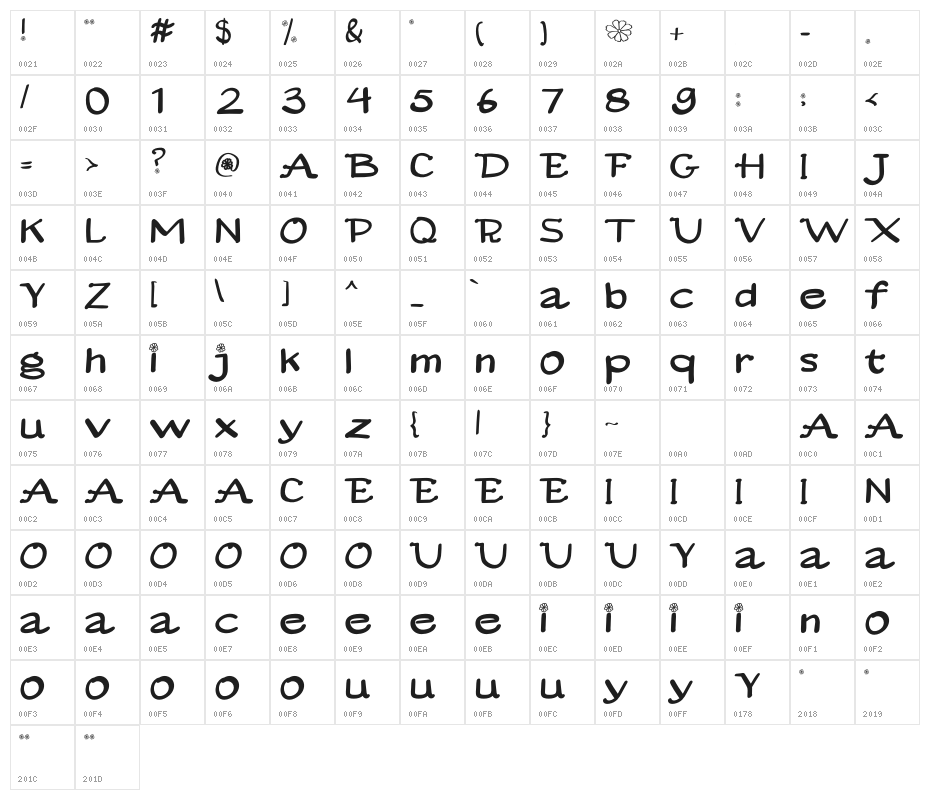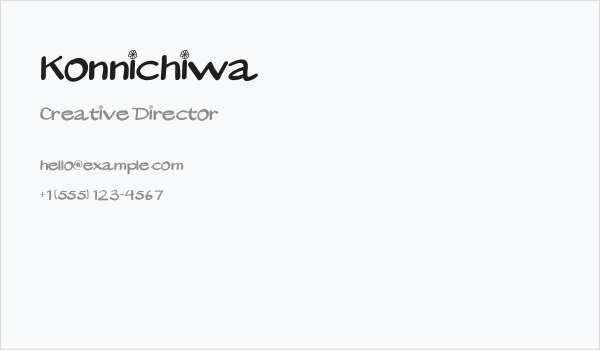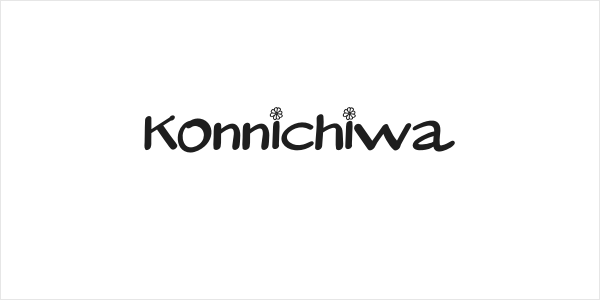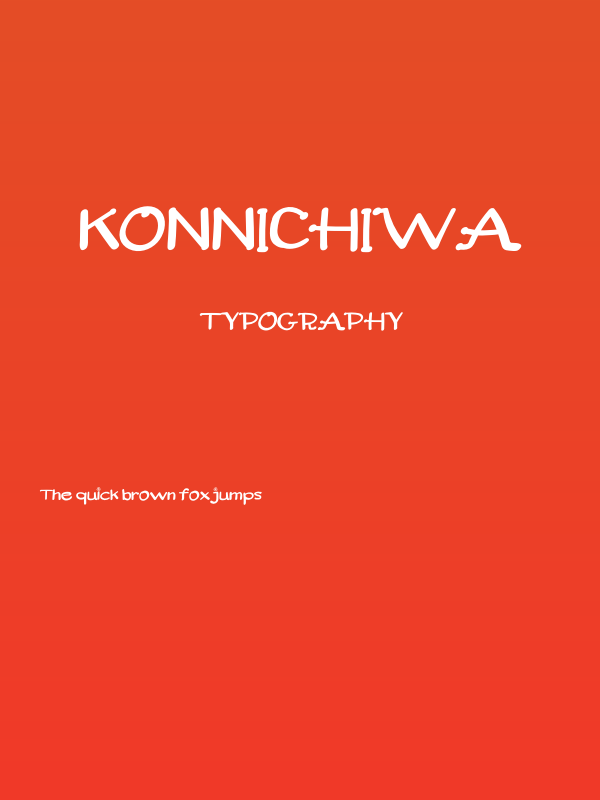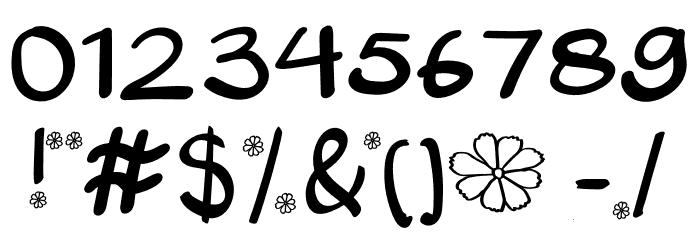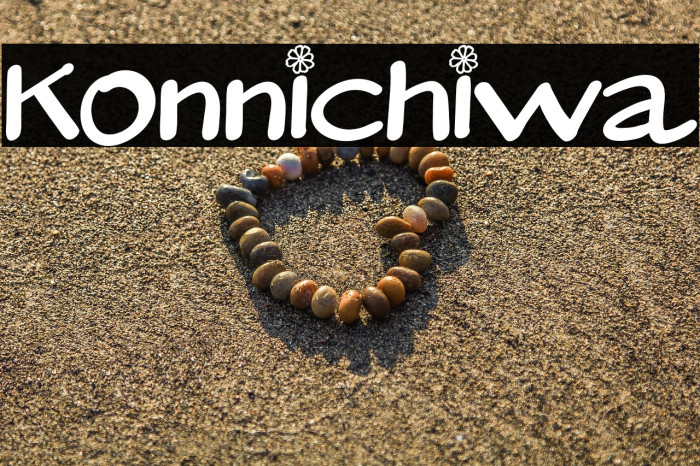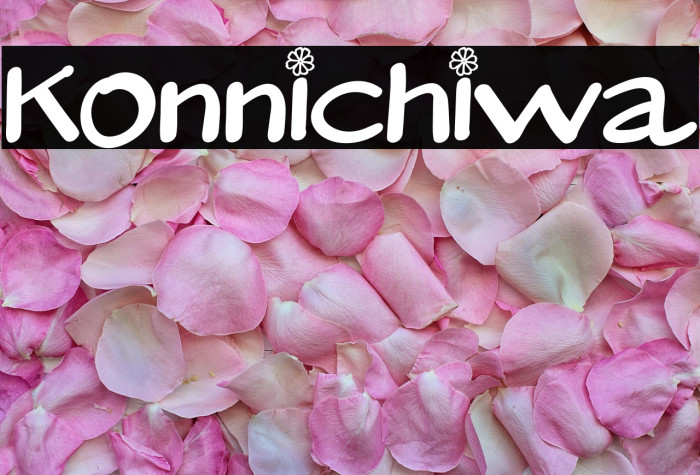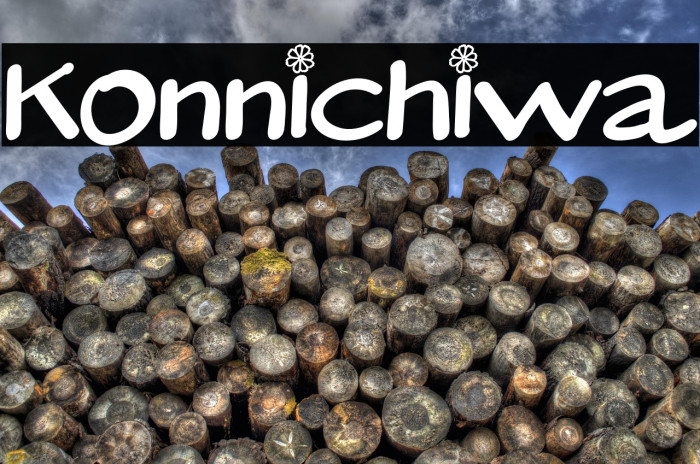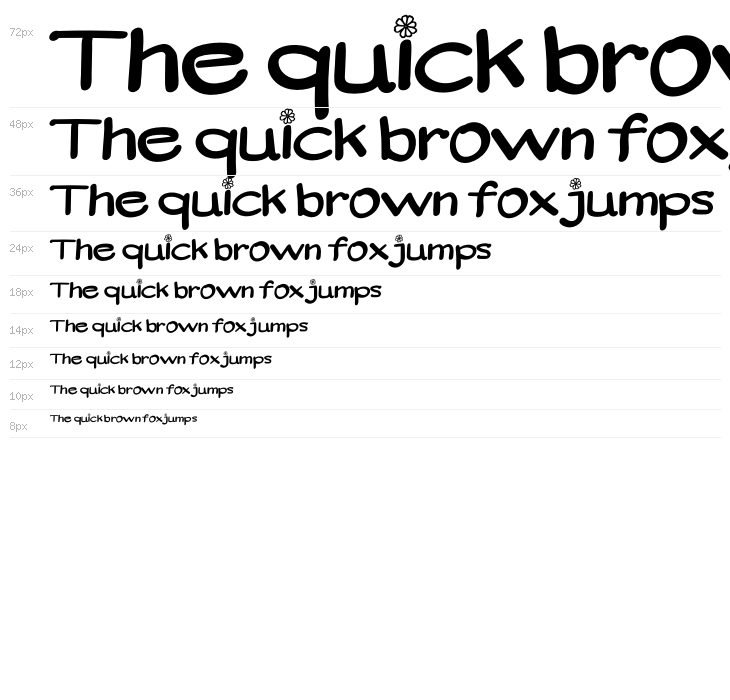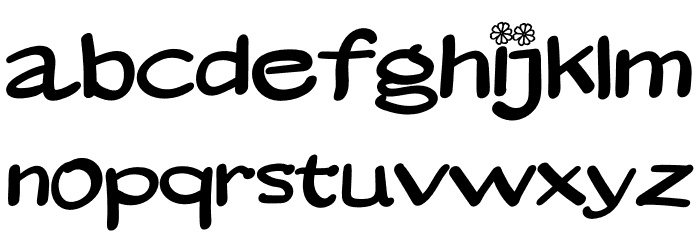
Konnichiwa Font
This playful and whimsical font features a handwritten style with a unique flair. The letters are characterized by their rounded, bold strokes and slightly uneven baseline, giving it a casual and friendly appearance. The inclusion of floral embellishments on certain characters adds a decorative touch, making it stand out for creative projects. The numbers and special characters maintain the same playful style, ensuring consistency across all text elements. This font is perfect for projects that require a fun and informal tone.
| Proposed Projects | Ideal for children's books, greeting cards, playful branding, and creative posters. |